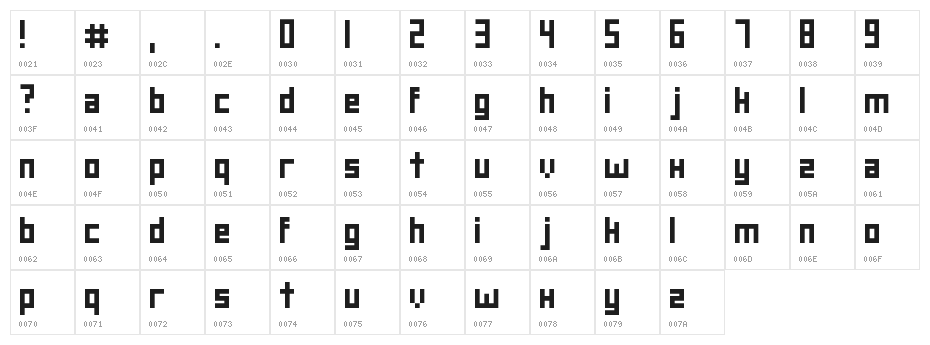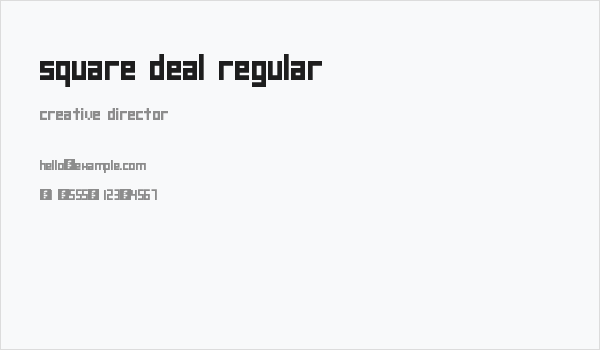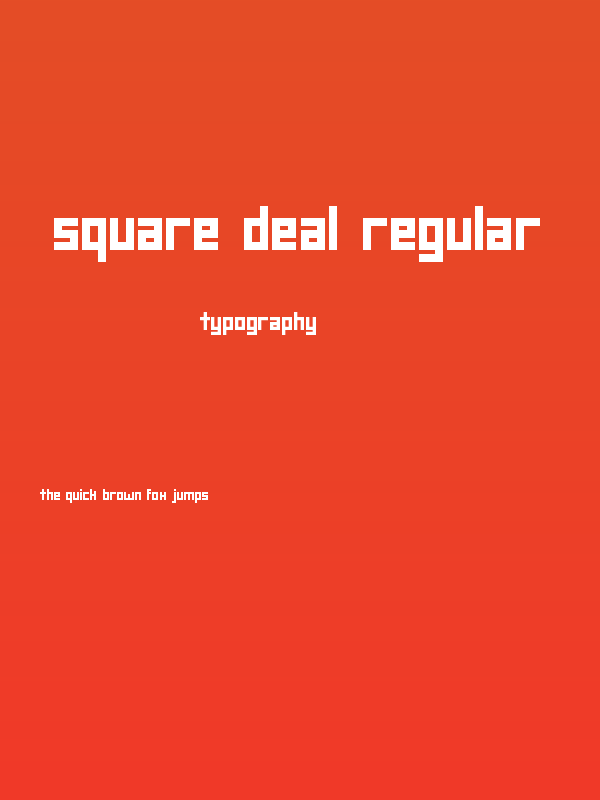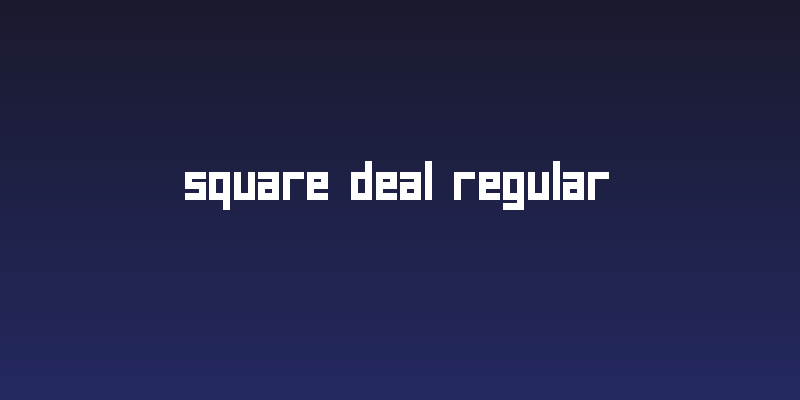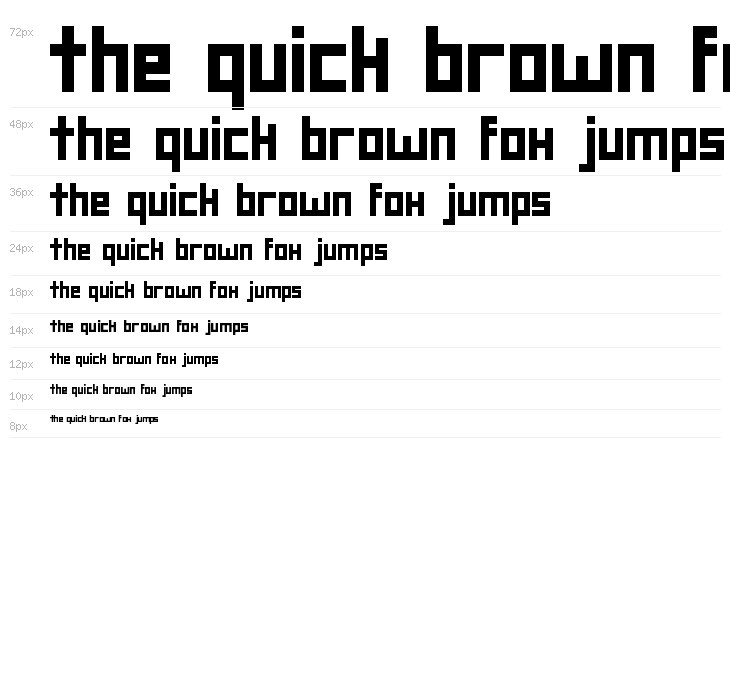
square deal Regular Font
square deal Regular Description
This font features a bold, geometric design with a distinctly modern and digital aesthetic. The characters are constructed with sharp, angular lines and uniform stroke widths, creating a blocky and robust appearance. The uppercase and lowercase letters maintain a consistent height, contributing to a cohesive and structured look. The numerals and special characters follow the same design principles, ensuring uniformity across all glyphs. The overall style is reminiscent of digital displays or pixel art, making it ideal for projects that require a futuristic or tech-inspired feel.